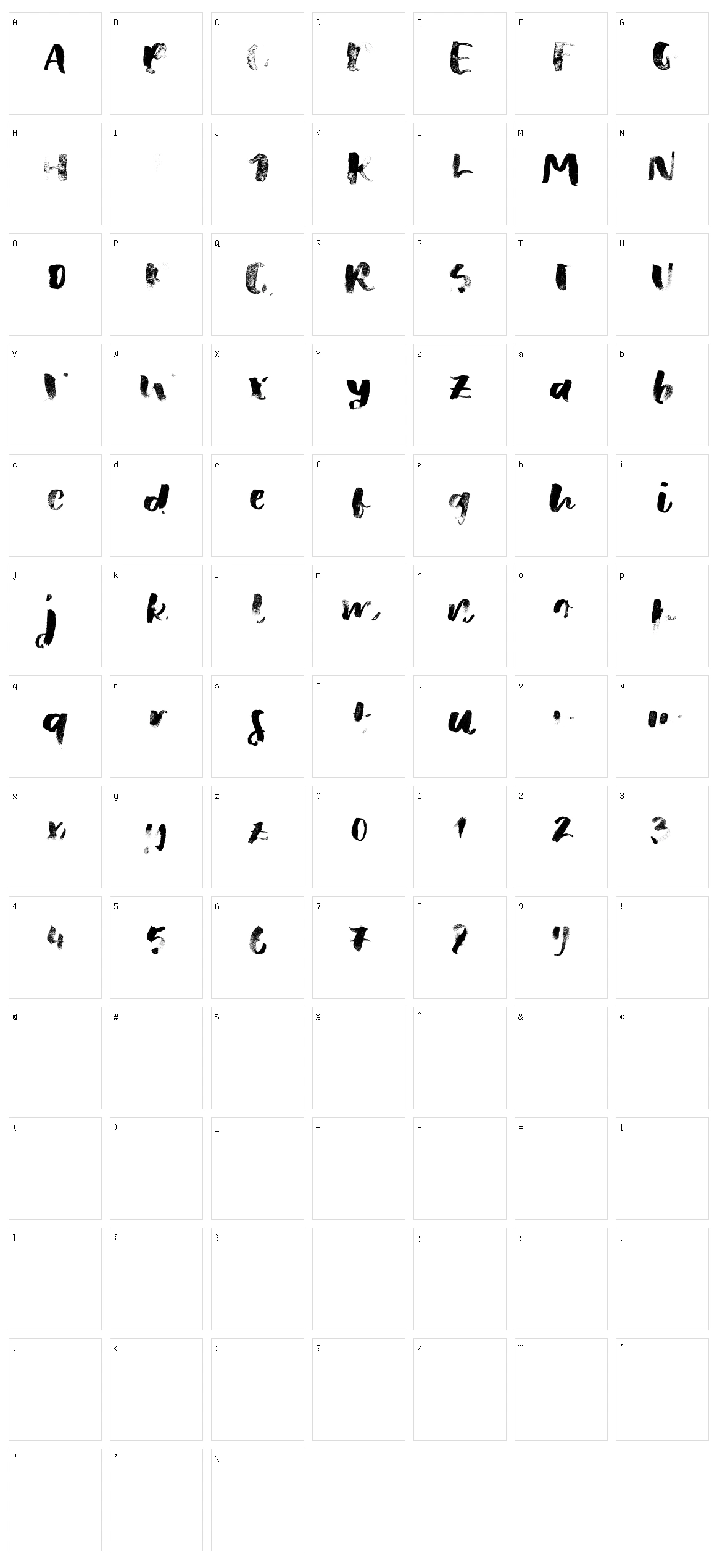
This is a sample version of These Days, a watercolour brush font, in two versions:
Textured SVG font
Solid smooth font
The OTF/ TTF font includes:
A-Z, a-z, 0-9
Accents
Symbols and punctuation
The full SVG font includes a more limited character set without multilingual support (although I have included the accents in the Extras file, so that you can eventually compose the accented letters yourself).
It also includes a set of ligatures, doodles, swashes and splatters, perfect to decorate your designs.
It's perfect for designs such as postcards and notes, logotypes, social media posts, branding and packaging, etc.